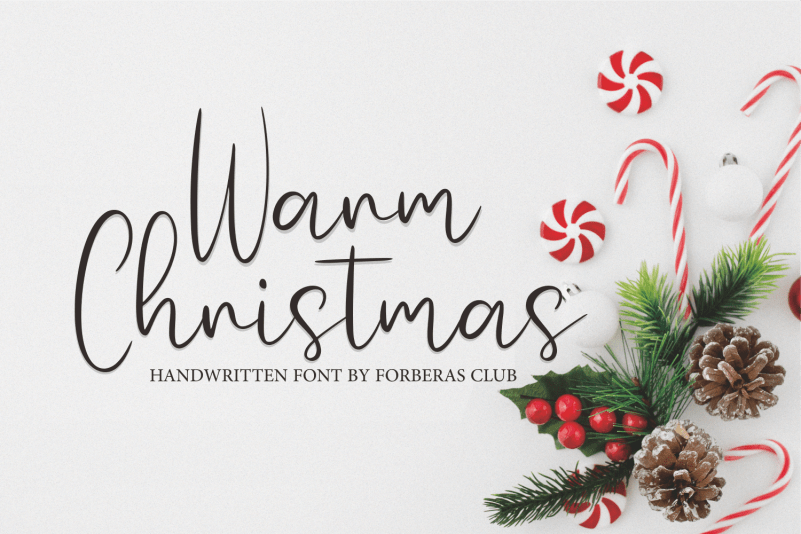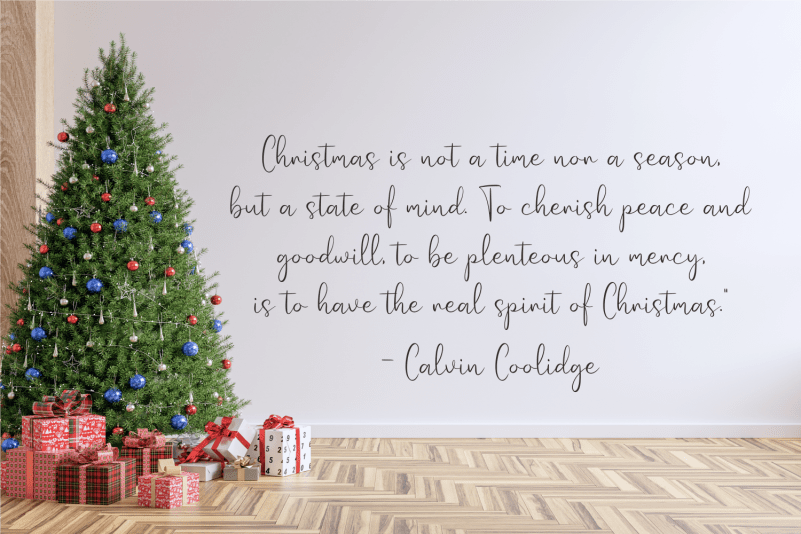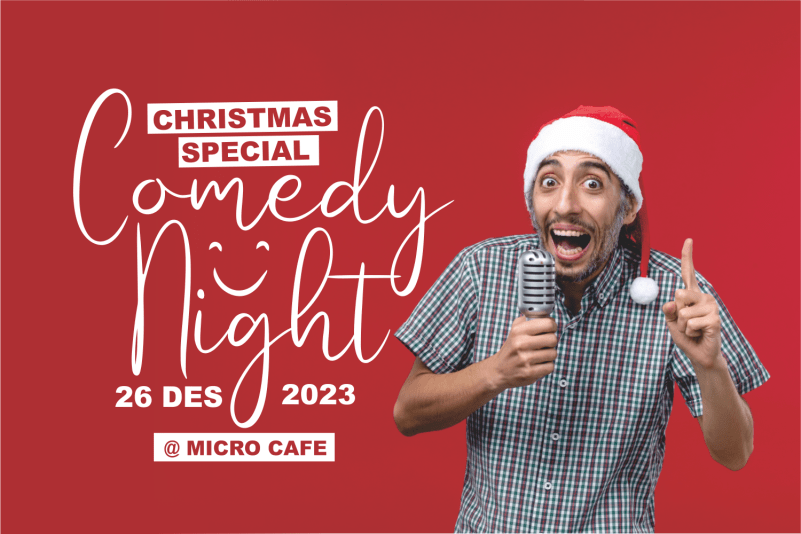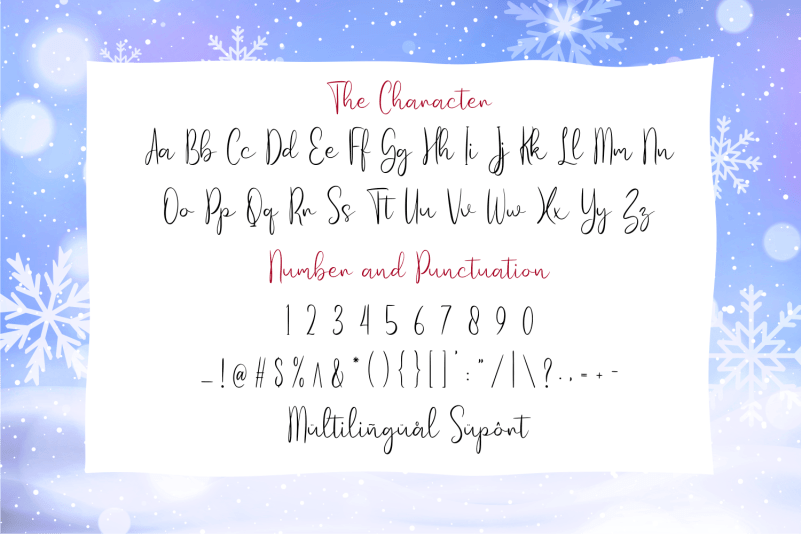
Warm Christmas Font
Warm Christmas Script Font is a unique and elegant handwritten font. It looks beautiful on a variety of designs requiring a personalized style, such as wedding invitations, thank you cards, weddings, greeting cards, logos and so on.